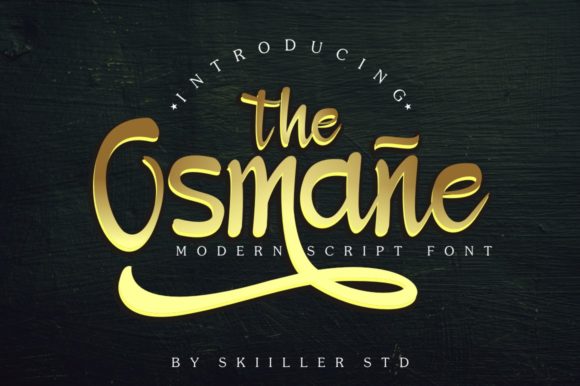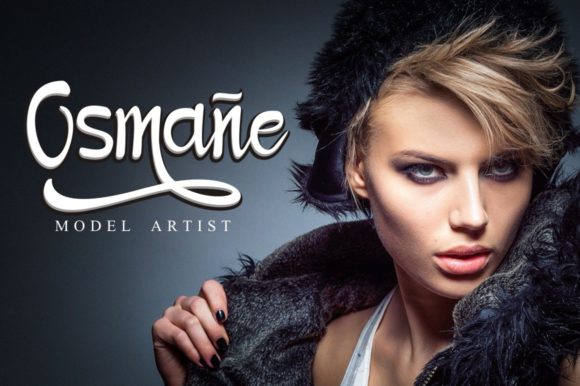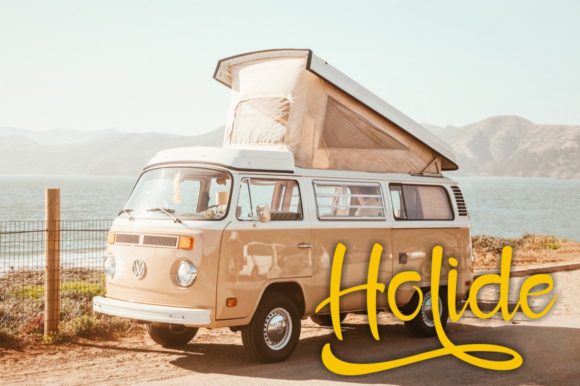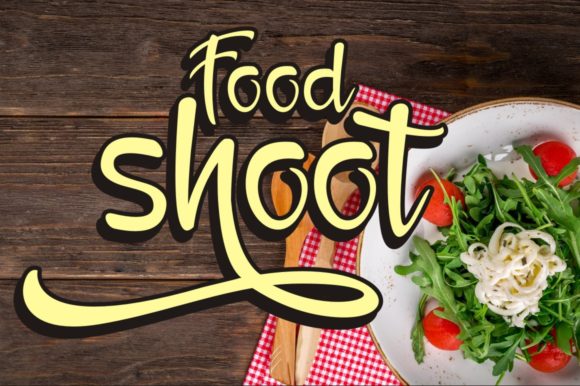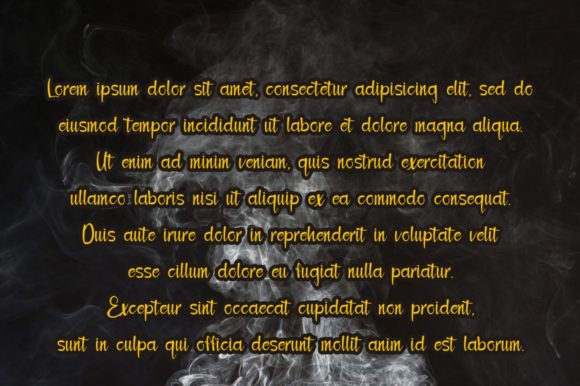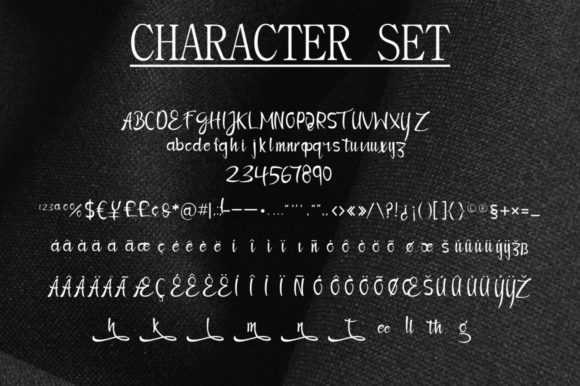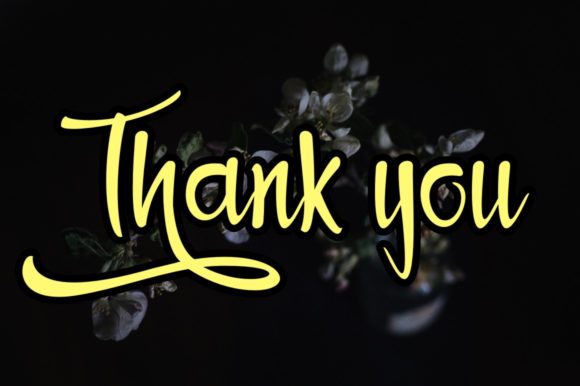
Osmane Font
About Osmane Font
Osmane is a modern version of a classic handwritten font. Get inspired by its amazing swashes, and turn any design project into a true standout!